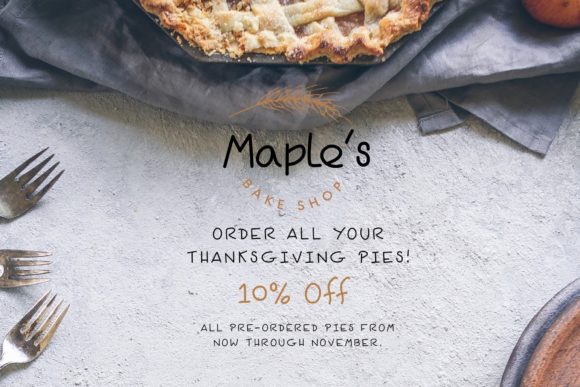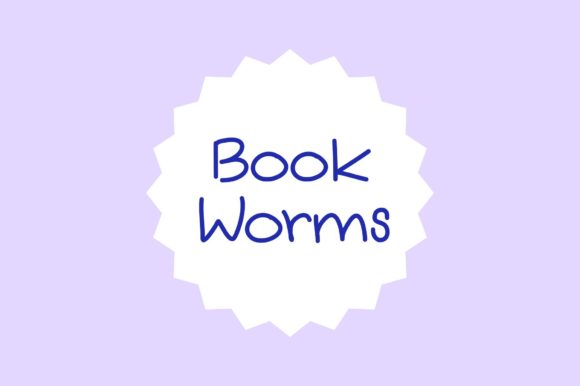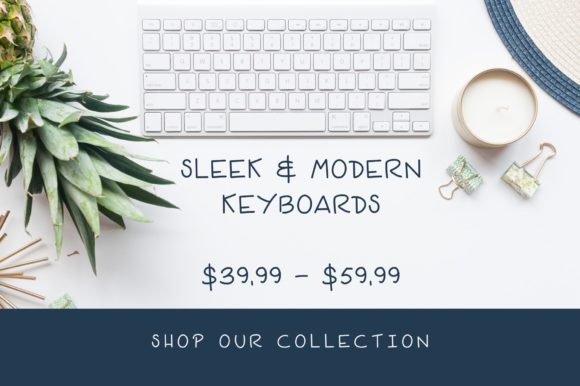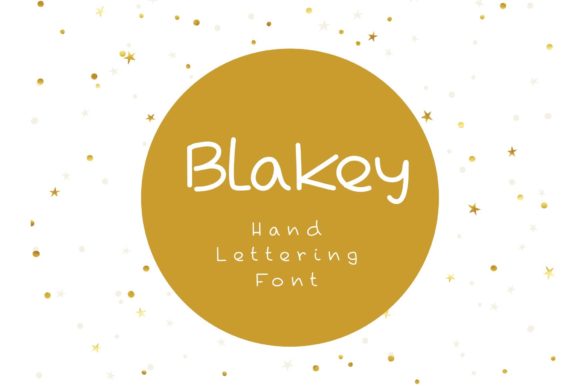
Introducing Blakey Font: The Ultimate Choice for Clean and Refreshing Designs
In the world of typography, fonts play a crucial role in making or breaking a design. A well-chosen font can elevate your project, making it more visually appealing and engaging. If you’re on the hunt for a clean, simple, and neat handwritten font that adds a touch of elegance to your designs, look no further than Blakey Font. In this article, we’ll dive into the world of Blakey Font, exploring its features, benefits, and uses, making it a must-read for designers and crafters alike.
What is Blakey Font?
Blakey Font is a beautifully crafted handwritten font, designed specifically for those who crave a clean and refreshing look in their designs. Its simplicity and neatness make it an excellent choice for a wide range of projects, from digital designs to print materials. Whether you’re working on a logo, brochure, website, or social media post, Blakey Font is sure to impress.
Key Features of Blakey Font
- Clean and Simple: Blakey Font boasts a clean and simple design, making it easy to read and understand.
- Neat Handwritten Style: Its handwritten style adds a touch of elegance and sophistication to any design.
- Versatile: Blakey Font is suitable for a wide range of projects, including logos, brochures, websites, and social media posts.
- Easy to Read: The font’s clear and legible design ensures that your message is conveyed effectively.
Benefits of Using Blakey Font
So, why choose Blakey Font for your next project? Here are just a few benefits of using this amazing font:
- Enhance Your Brand’s Visual Identity: Blakey Font can help you create a consistent visual brand identity that sets you apart from the competition.
- Improve Readability: Its clean and simple design ensures that your message is conveyed clearly and effectively.
- Save Time: With Blakey Font, you can quickly and easily create stunning designs without spending hours on typography.
- Increase Engagement: The font’s elegant and sophisticated design is sure to engage your audience and leave a lasting impression.
Who Can Benefit from Blakey Font?
Blakey Font is an excellent choice for a wide range of designers and crafters, including:
- Graphic Designers: Add a touch of elegance to your designs and take your brand’s visual identity to the next level.
- Digital Designers: Create stunning digital designs, including websites, social media posts, and email marketing campaigns.
- Crafters: Use Blakey Font to add a personal touch to your craft projects, such as handmade cards, gift tags, and scrapbooking.
- Small Business Owners: Enhance your brand’s visual identity and create a consistent look across all your marketing materials.
How to Use Blakey Font
Using Blakey Font is easy! Here are a few tips to get you started:
- Pair it with Other Fonts: Experiment with pairing Blakey Font with other fonts to create a unique and visually appealing design.
- Adjust Font Sizes: Play with different font sizes to create visual hierarchy and emphasize important information.
- Use it for Headings and Body Text: Use Blakey Font for both headings and body text to create a consistent look and feel.
In conclusion, Blakey Font is an excellent choice for designers and crafters looking for a clean, simple, and neat handwritten font. Its versatility, readability, and elegance make it suitable for a wide range of projects. Whether you’re a graphic designer, digital designer, crafter, or small business owner, Blakey Font is sure to enhance your designs and take your brand’s visual identity to the next level. So why wait? Give Blakey Font a try today and experience the power of beautiful typography!